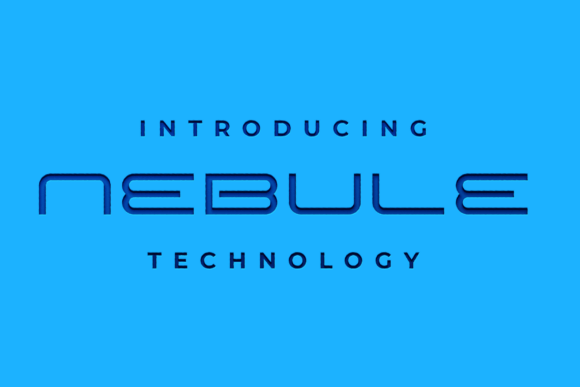
Nebule Font: The Ultimate Choice for Futuristic and Modern Designs
In the world of typography, fonts play a crucial role in conveying the tone and personality of a brand or design. With the ever-evolving digital landscape, the demand for modern and futuristic fonts has increased significantly. One such font that has gained popularity among designers and developers is Nebule Font. In this article, we’ll explore the features, benefits, and uses of Nebule Font, and why it’s the perfect choice for tech branding, user interfaces, digital products, startup identities, and sci-fi-inspired visuals.
What is Nebule Font?
Nebule Font is a futuristic sans-serif font designed with precision, clarity, and digital elegance. Its sleek lines, geometric structure, and clean rhythm make it an ideal choice for modern designs. Nebule Font is built to provide a sense of innovation and modern intelligence to every project, making it a popular choice among designers and developers.
Key Features of Nebule Font
- Geometric Structure: Nebule Font features a geometric structure that gives it a modern and futuristic look.
- Sleek Lines: The font’s sleek lines provide a clean and elegant look, making it perfect for digital designs.
- Clean Rhythm: Nebule Font has a clean rhythm that ensures excellent readability, even at small font sizes.
- Sans-Serif: The font’s sans-serif design makes it perfect for digital interfaces, as it provides a clean and minimalist look.
Benefits of Using Nebule Font
Nebule Font offers several benefits that make it an ideal choice for modern designs. Some of the benefits include:
- Improved Readability: Nebule Font’s clean design and geometric structure ensure excellent readability, even at small font sizes.
- Enhanced Visual Appeal: The font’s sleek lines and modern design make it perfect for creating visually appealing designs.
- Versatility: Nebule Font is versatile and can be used for a wide range of designs, from tech branding to sci-fi-inspired visuals.
- Digital Elegance: The font’s digital elegance makes it perfect for digital designs, including user interfaces and digital products.
Use Cases for Nebule Font
Nebule Font is perfect for a wide range of designs, including:
- Tech Branding: Nebule Font is ideal for tech branding, as it provides a modern and futuristic look.
- User Interfaces: The font’s clean design and geometric structure make it perfect for user interfaces.
- Digital Products: Nebule Font is suitable for digital products, such as e-books, apps, and websites.
- Startup Identities: The font’s modern design makes it perfect for startup identities, as it provides a sense of innovation and modern intelligence.
- Sci-Fi-Inspired Visuals: Nebule Font is ideal for sci-fi-inspired visuals, as it provides a futuristic look.
Why Choose Nebule Font?
Nebule Font is a popular choice among designers and developers due to its unique features and benefits. Some of the reasons to choose Nebule Font include:
- Unique Design: Nebule Font has a unique design that sets it apart from other fonts.
- High-Quality: The font is designed with high-quality and precision, ensuring excellent readability and visual appeal.
- Versatility: Nebule Font is versatile and can be used for a wide range of designs.
- Easy to Read: The font’s clean design and geometric structure make it easy to read, even at small font sizes.
Tips for Using Nebule Font
Here are some tips for using Nebule Font:
- Use it for Headings: Nebule Font is perfect for headings, as it provides a modern and futuristic look.
- Pair it with Other Fonts: The font can be paired with other fonts to create a unique and visually appealing design.
- Use it for Digital Designs: Nebule Font is designed for digital designs, so it’s perfect for user interfaces, digital products, and websites.
- Experiment with Font Sizes: The font’s clean design and geometric structure make it easy to read, even at small font sizes.
Nebule Font is a futuristic sans-serif font that’s perfect for modern designs. Its sleek lines, geometric structure, and clean rhythm make it an ideal choice for tech branding, user interfaces, digital products, startup identities, and sci-fi-inspired visuals. With its unique design, high-quality, and versatility, Nebule Font is a popular choice among designers and developers. By following the tips outlined in this article, you can make the most of Nebule Font and create visually appealing designs that convey innovation and modern intelligence.